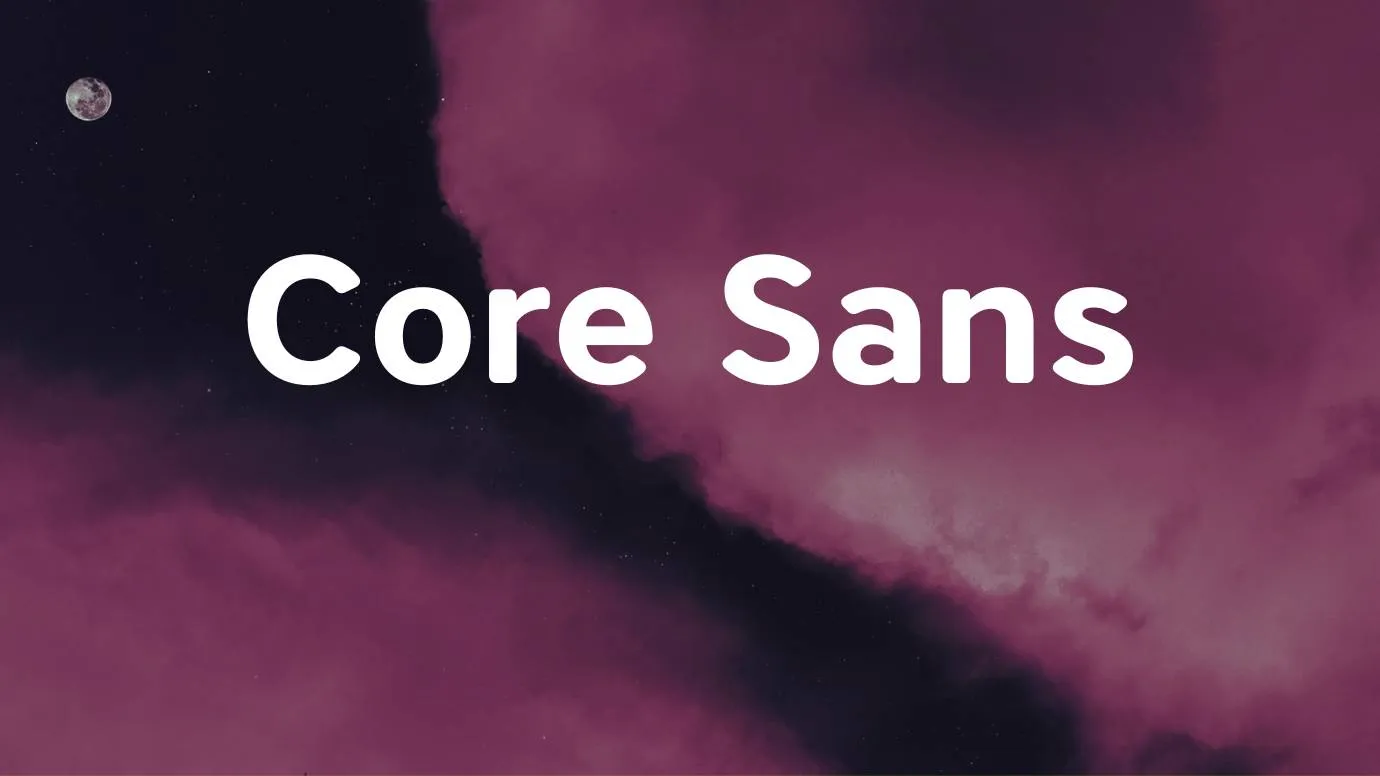
Core Sans Font is a contemporary and modern sans serif typeface that was designed by Hyun-Seung Lee, Dae-Hoon Hahm, Minjoo Ham and published in 2013 by S-Core that has a great name in the font marketplace. This font family comprises 3 weights including regular, bold, and light.
It is going to be best for web, display screens, and even better for prints. The most similar fonts to this amazing typeface are Burbin Casual NC Font, Exo Demi Font, and Track Font.
NameCore Sans Font
DesignerHyun-Seung Lee, Dae-Hoon Hahm, Minjoo Ham
FoundryS-Core
StyleSans Serif
Date Released2013